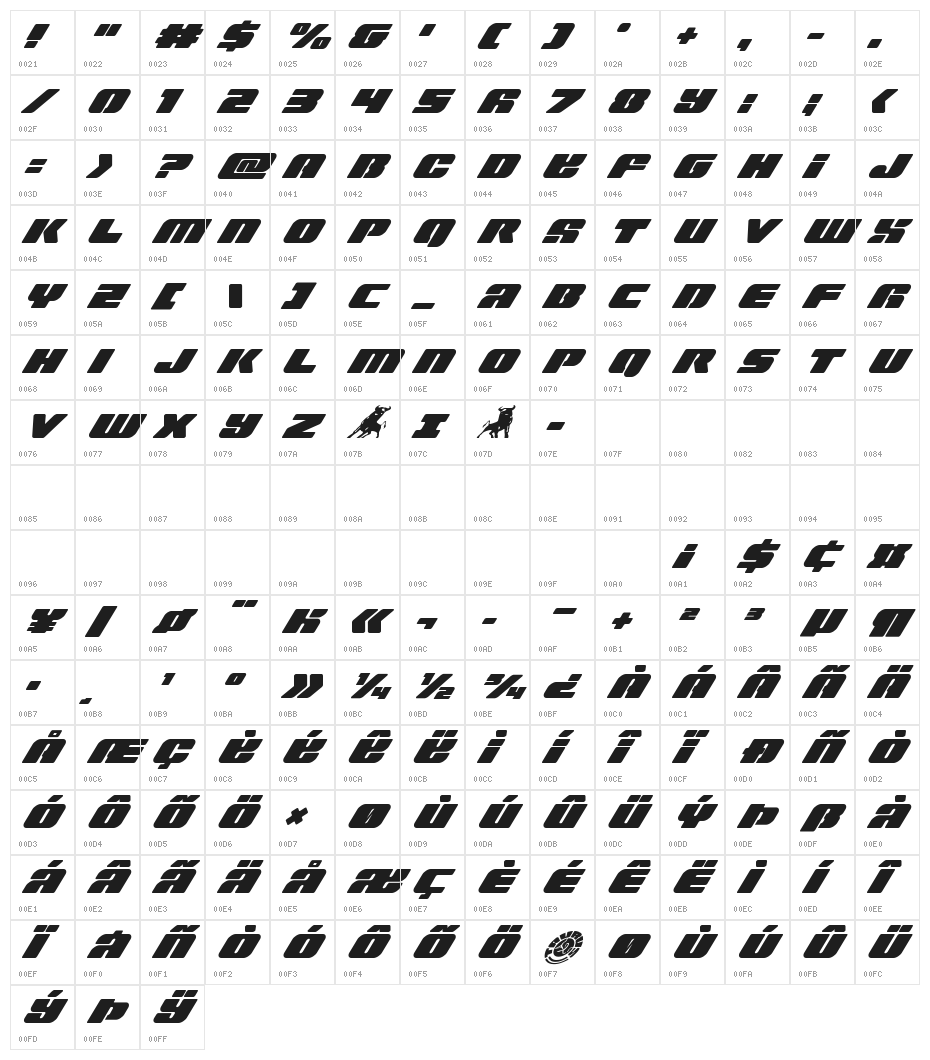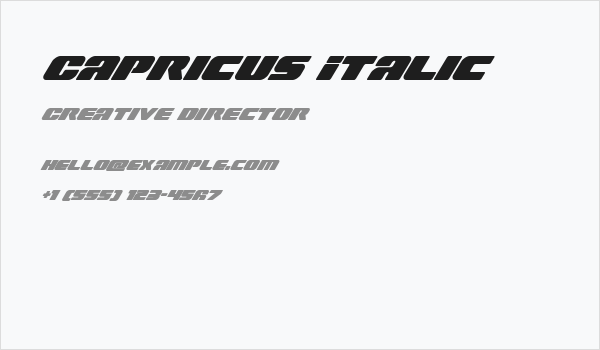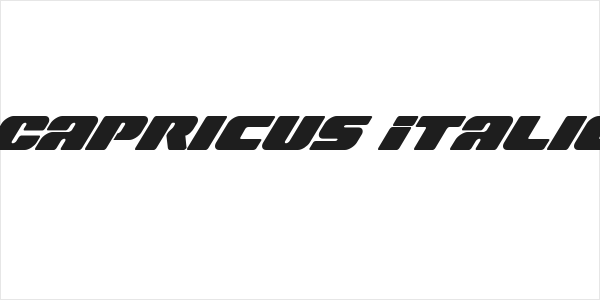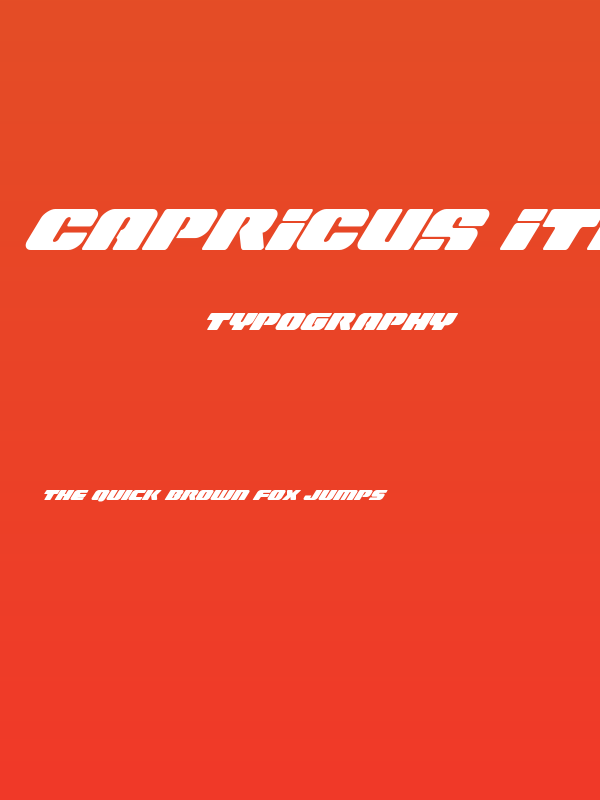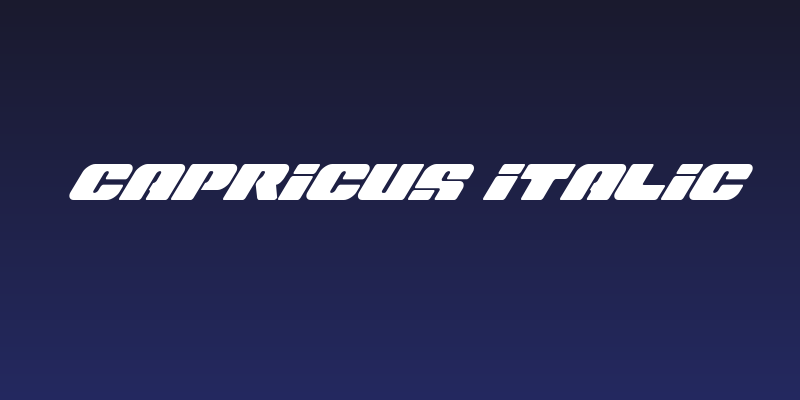
Capricus Italic Font
Capricus Italic Description
This font features a bold, italicized style with a futuristic and dynamic appearance. The characters are designed with sharp angles and a forward-leaning posture, giving a sense of motion and speed. The uppercase and lowercase letters maintain a consistent style, with the lowercase being slightly smaller but equally bold. The numbers and special characters are crafted to match the overall aesthetic, ensuring uniformity across all glyphs. The font's design is ideal for projects that require a modern and edgy look, such as technology branding, sports team logos, or dynamic advertising campaigns.
| Use Case | Logos, Headlines |
| Proposed Projects | Ideal for technology branding, sports team logos, and dynamic advertising campaigns. |